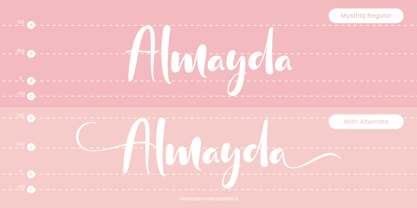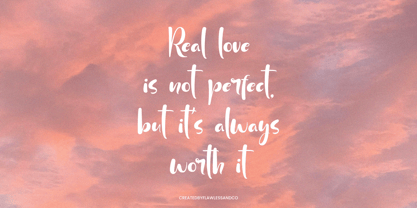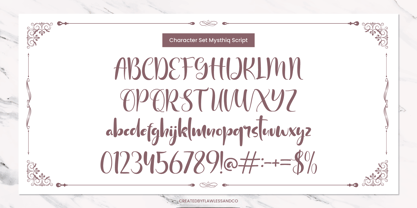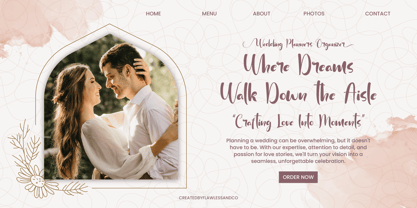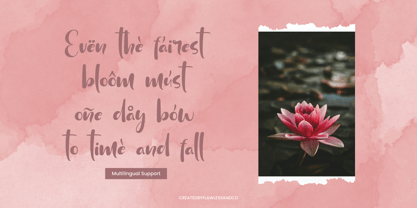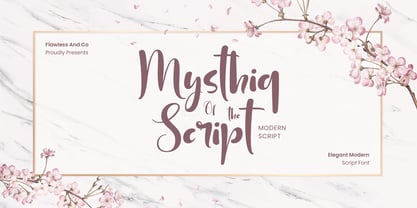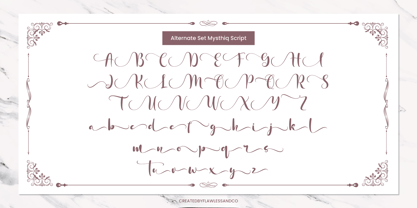
Mysthiq
La famille de polices Mysthiq a été conçue par Achmad Yani et publiée par Flawlessandco. Mysthiq contient 1 styles. En savoir plus sur cette famille
Mysthiq is an elegant and stylish modern script font designed to bring a perfect blend of sophistication and creativity to your designs. With its graceful curves and contemporary feel, Mysthiq captures attention effortlessly while maintaining a timeless charm.
Features :
Multilingual, Uppercase alphabet A-Z, Lowercase alphabet a-z, Numbers 0-9, Some punctuation, Alternates & Ligatures